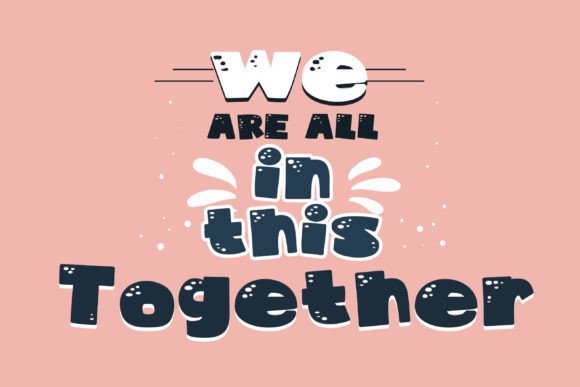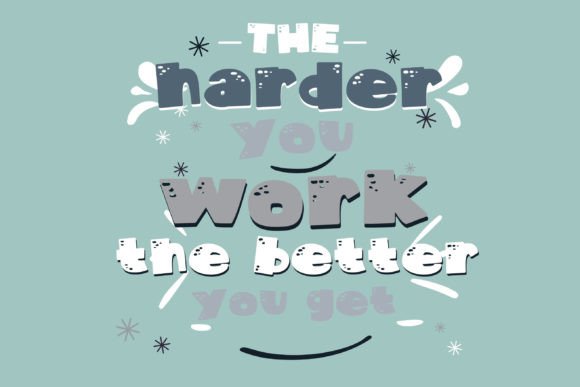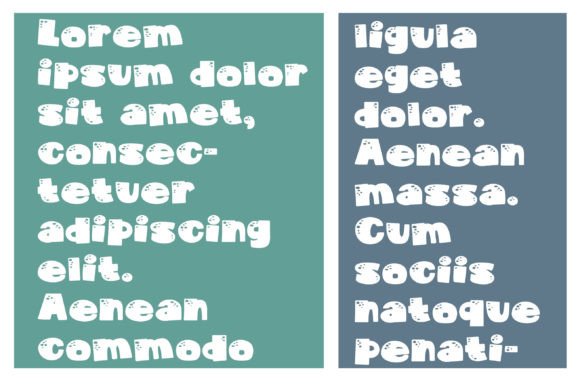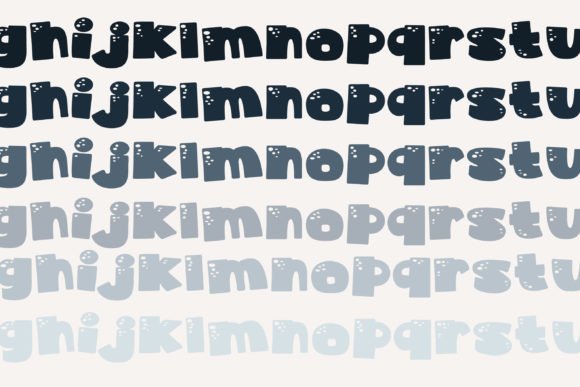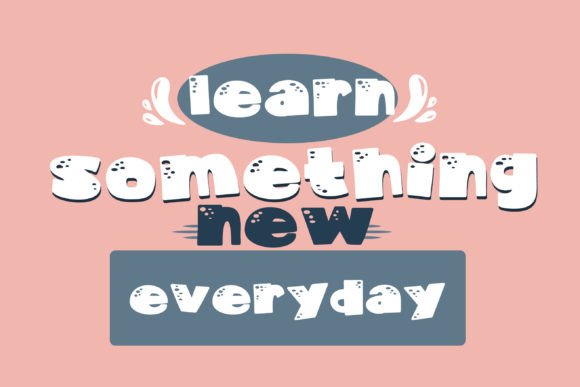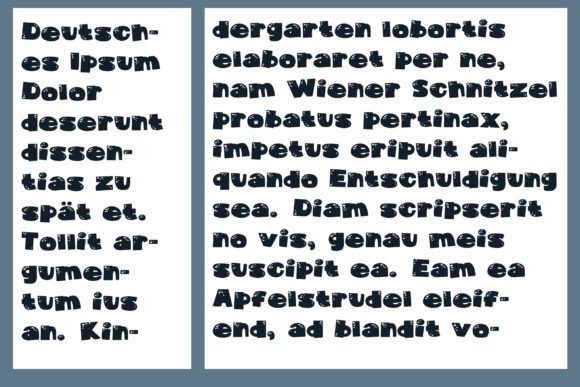
Frog Spots Font: A Whimsical and Playful Design Option
Are you looking for a font that adds a touch of playfulness to your designs? Look no further than Frog Spots Font! This whimsical and distinct font is perfect for designers and crafters seeking to infuse their projects with character and charm. In this article, we’ll explore the unique features of Frog Spots Font and why it’s an excellent choice for a wide range of design applications.
Unique Letter Shapes and Design
Frog Spots Font boasts unique letter shapes that set it apart from more traditional fonts. Its creative design exudes character and charm, making it an excellent choice for designers looking to add a touch of personality to their work. The font’s modern feel ensures that it remains clean and legible, even at smaller sizes.
Seamless Letter Flow
One of the standout features of Frog Spots Font is the way its letters flow together seamlessly. This cohesive look creates a captivating visual effect that’s sure to delight. Whether you’re designing a logo, crafting a social media graphic, or creating a website, Frog Spots Font is sure to make your project stand out.
Perfect for Playful Designs
Frog Spots Font is perfect for designs that require a touch of playfulness. Its whimsical nature makes it an excellent choice for:
- Children’s products and packaging
- Social media graphics and animations
- Websites and blogs with a playful tone
- Invitations and party decorations
Why Designers and Crafters Love Frog Spots Font
So, why do designers and crafters love Frog Spots Font? Here are just a few reasons:
- Unique and distinctive: Frog Spots Font is unlike any other font on the market. Its unique letter shapes and design make it a standout choice for designers looking to create something truly original.
- Playful and whimsical: This font is perfect for designs that require a touch of playfulness. Its whimsical nature makes it an excellent choice for projects that need to appeal to a younger audience.
- Clean and modern: Despite its playful nature, Frog Spots Font remains clean and modern. Its sleek design ensures that it looks great in a wide range of design applications.
- Easy to read: One of the most important features of any font is legibility. Frog Spots Font is easy to read, even at smaller sizes, making it perfect for body text and captions.
Tips for Using Frog Spots Font
Here are a few tips for using Frog Spots Font in your designs:
- Use it as a headline font: Frog Spots Font is perfect for headlines and titles. Its unique design and playful nature make it an excellent choice for grabbing attention.
- Pair it with a sans-serif font: For body text, pair Frog Spots Font with a clean sans-serif font. This will create a nice contrast and ensure that your text is easy to read.
- Experiment with colors and textures: Frog Spots Font looks great in a wide range of colors and textures. Experiment with different combinations to find the perfect look for your design.
Frog Spots Font is a whimsical and distinct font that’s perfect for designers and crafters seeking to add a touch of playfulness to their projects. Its unique letter shapes, creative design, and seamless letter flow make it an excellent choice for a wide range of design applications. Whether you’re designing a logo, crafting a social media graphic, or creating a website, Frog Spots Font is sure to delight. So why not give it a try and see the difference it can make in your designs?